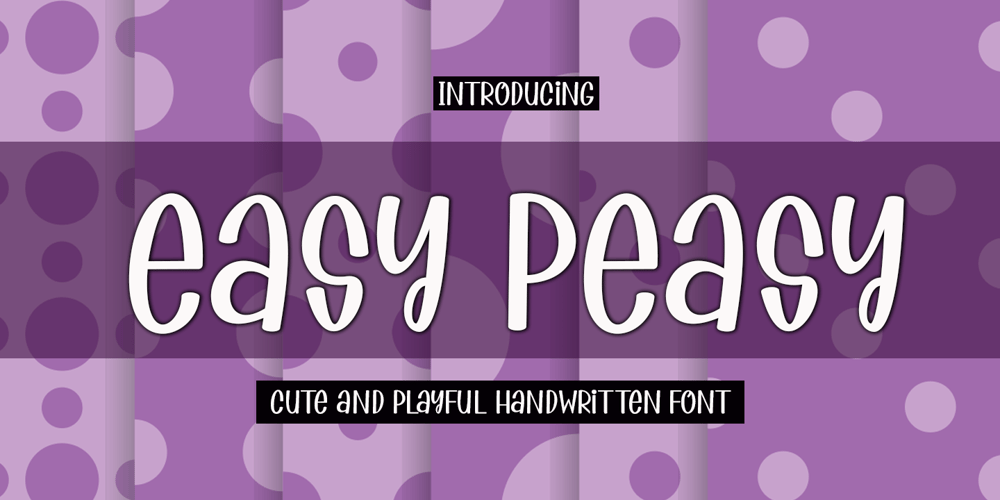
Easy Peasy Font Family was designed by Arief Tri Sulistiyono and published by Supersemarletter. Easy Peasy contains 1 styles and family package options. Easy Peasy is a cute and playful display font. Relaxed and a little bit quirky, this font is the perfect fit for all of your logos, branding, posters, and crafty DIY projects. Honestly it works perfectly for headlines, logos, posters, packaging, T-shirts and much more.Font Features :• Regular version• Character set A-Z in uppercase and lowercase• Numerals & Punctuation• Accented Characters• Multiple Languages Supported• Format File: OTFRecommended to use in Adobe Illustrator or Adobe Photoshop.If you have questions, just send me a message and I’m glad to help.Best Regards,Supersemar Letter